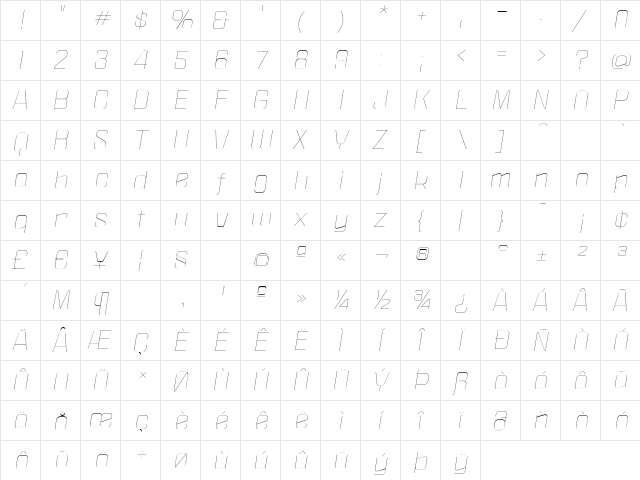
Politica XT Thin Italic Font Preview
| Foundry | Alejandro Paul |
| Designer | Alejandro Paul & Alfredo Graziani |
Design Context for Politica XT Typeface
Politica XT takes a measured approach to typography — its balanced proportions and neutral character make it a reliable workhorse for both digital and print work. Its italic angle brings a sense of urgency and motion to the letterforms. The delicate stroke weight brings airiness and refinement to layouts.